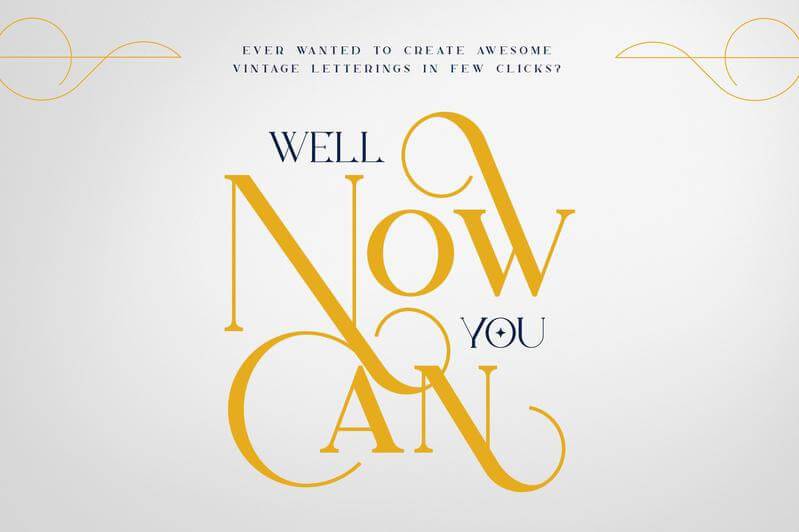
Lotus Eater Font
Lotus Eater Typeface is a display font with a vintage touch and a clean look. The typeface includes ligatures and a large number of alternate glyphs. It’s a highly versatile typeface that performs well in both large and tiny sizes. Uppercase, lowercase, numeric, punctuation, and symbol are all included in the typeface. There are almost 52 ornaments in the font. Another fantastic feature of this typeface is that it is multilingual. VP creative shop designed and shared the font.
Lotus Eater is ideal for branding initiatives, home decor, product packaging, magazine headings, or just as an elegant word overlay on any background image. The typeface looks fantastic on wallpapers, and it’s already been adopted by a number of brands. You may make it more attractive by making it italic. The typeface is a great choice for anyone looking for a font to utilize in a retro project.
StyleDisplay